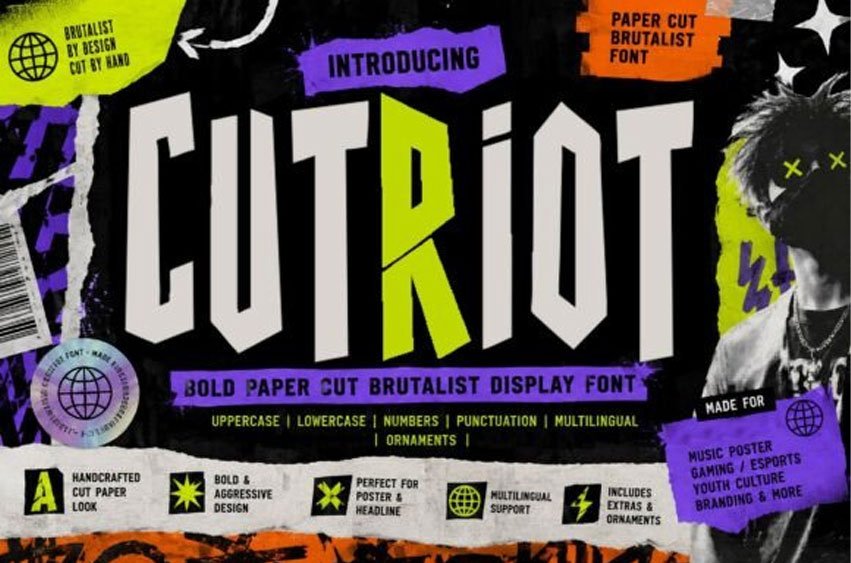
Cut Riot Font
Cut Riot Font is a bold paper cut brutalist display font inspired by handmade collage art, urban street culture, punk posters, and contemporary youth branding.
Featuring sharp cut-paper details, strong condensed forms, and controlled imperfections, this font is perfect for Streetwear, music artwork, gaming, esports, festival posters, packaging, and modern branding projects.